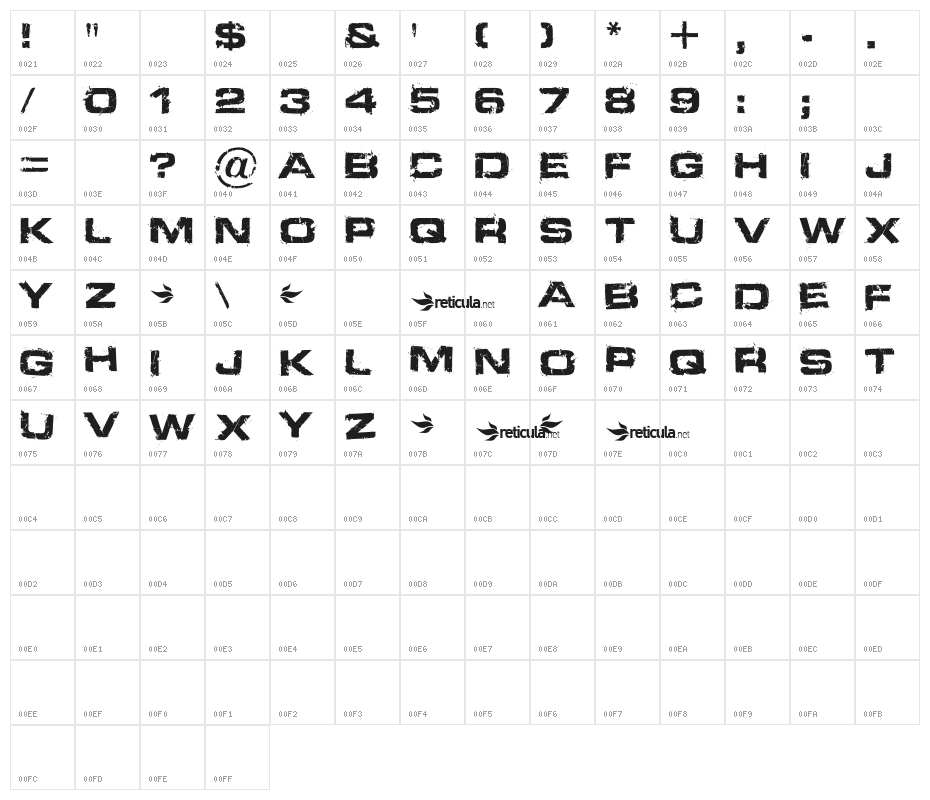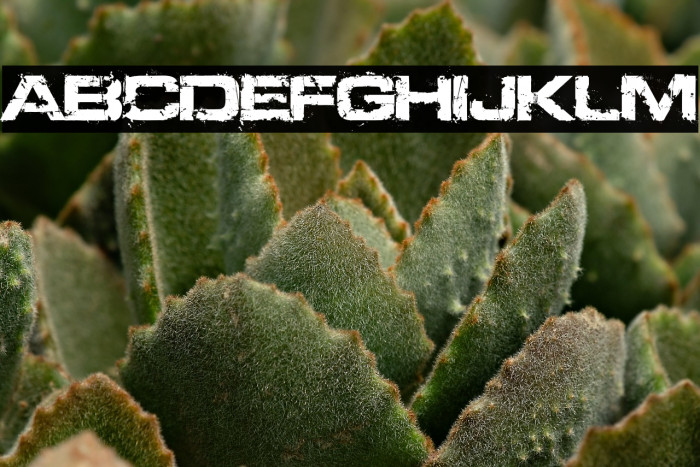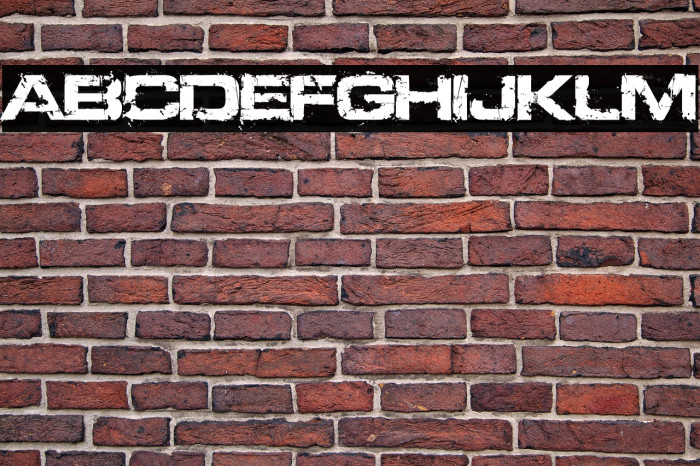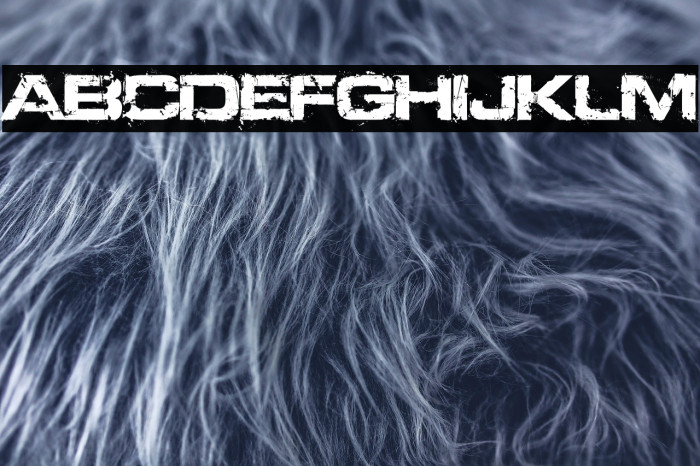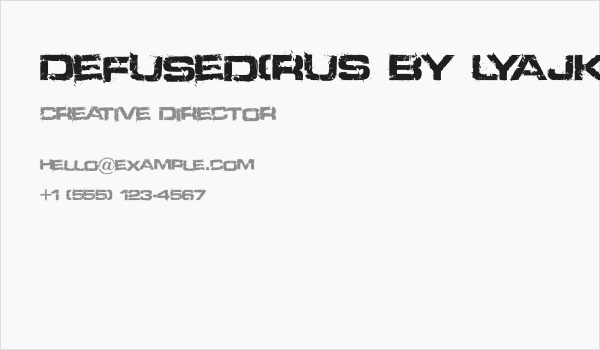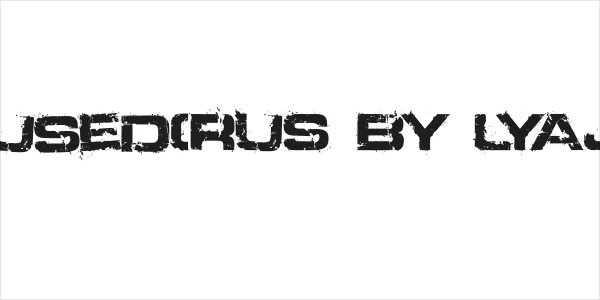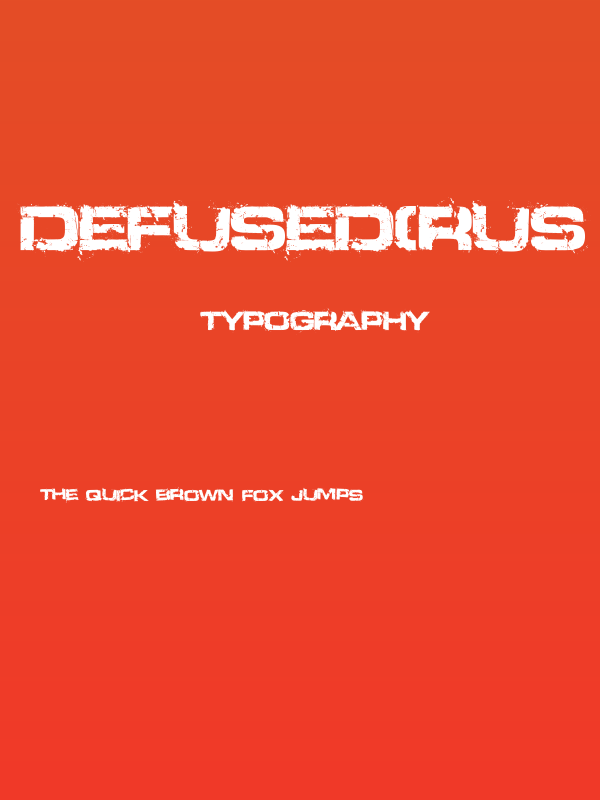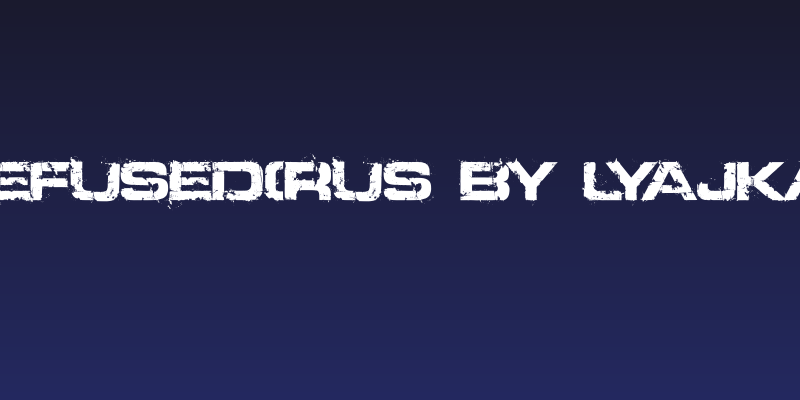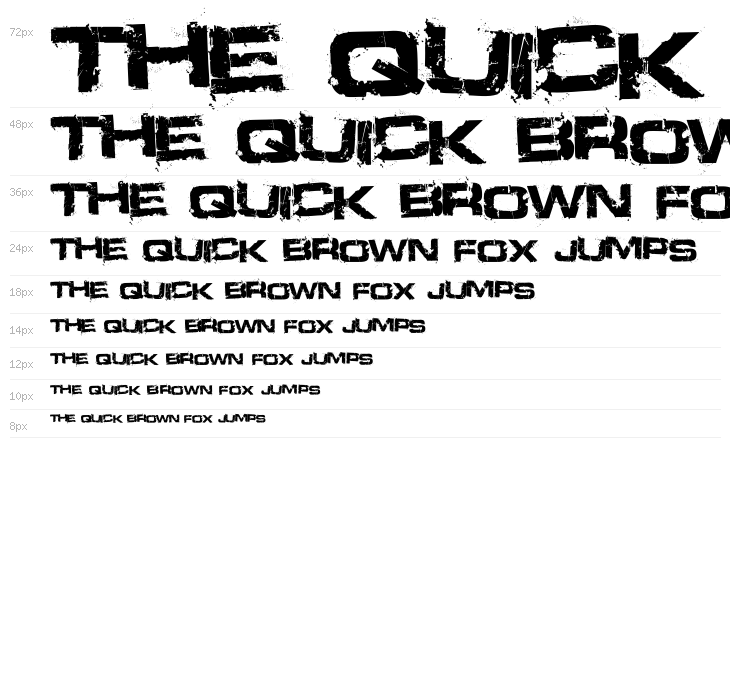
Defused(RUS BY LYAJKA) Font
Defused(RUS BY LYAJKA) Description
This font features a distressed, grunge style with a bold and impactful appearance. The characters are designed with a rough, textured look, giving them an edgy and rugged feel. The uppercase and lowercase letters maintain a consistent style, with jagged edges and uneven surfaces that create a sense of movement and dynamism. The numbers and special characters follow the same aesthetic, making the font suitable for projects that require a raw, urban vibe. The overall design is eye-catching and unique, perfect for making a statement.
| Overall Style | Grunge, Urban, Edgy |
| Proposed Projects | Ideal for album covers, posters, streetwear branding, and edgy graphic designs. |